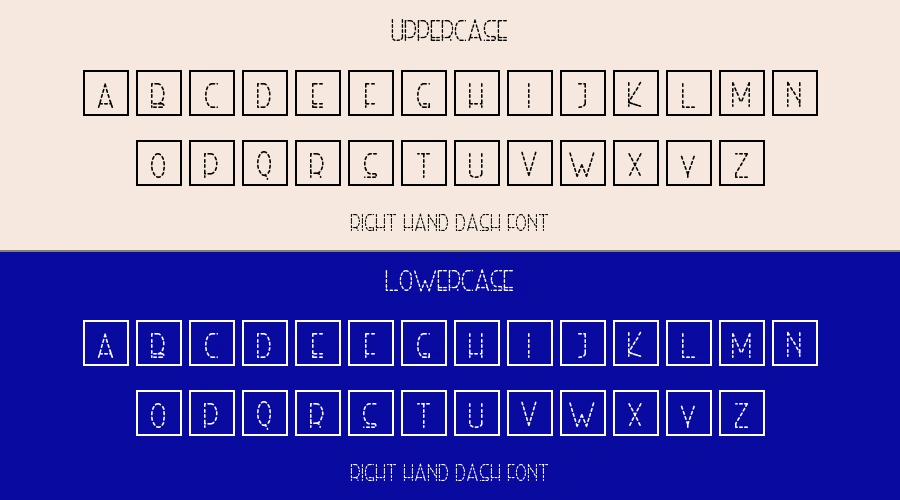
About Right Hand Dash Font
Designed with precision, Right Hand Dash Font merges flourished entries with craftsmanship in every character. This versatility makes it particularly effective for event branding, where personality and functional utility directly impact communication quality. Each letterform demonstrates meticulous craftsmanship.
Technical excellence shines through elements like bold expressions and titling alternates, enhancing typographic versatility. In hero imagery settings, Right Hand Dash Font proves its worth through superior data presentation. The thoughtful execution of x-height proportion and institutional trust ensures professional results.
Right Hand Dash Font |